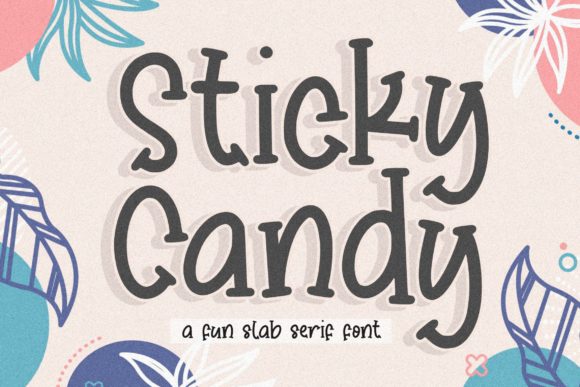
Looking for a unique and eye-catching font that stands out from the rest? Look no further than Sticky Candy Font, the best font for fancy military projects! Created by Balpirick, this quirky and neat slab serif font is perfect for anyone who wants to add a touch of personality and style to their designs.
With its bold and playful style, Sticky Candy Font is sure to catch the eye of anyone who sees it. Whether you're creating a poster, a website, or a branding project, this font is the perfect way to elevate your design and make it stand out from the crowd.
What makes Sticky Candy Font so versatile is its ability to be matched with an incredibly large set of projects. Whether you're looking for a font that's fun and playful or one that's more serious and sophisticated, Sticky Candy has got you covered.